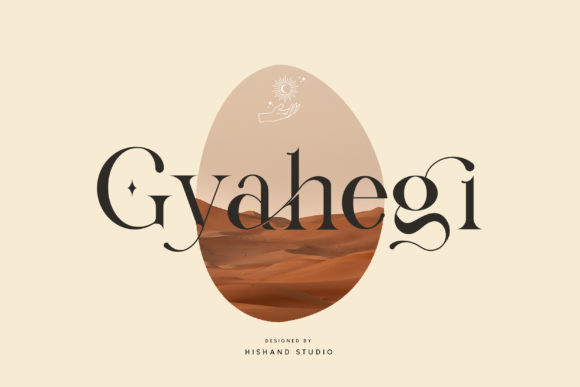
Gyahegi Font
Gyahegi FontGyahegi is modern and elegant serif font with beautiful icons. Fall in love with its completely different and timeless style and use it to create spectacular designs!